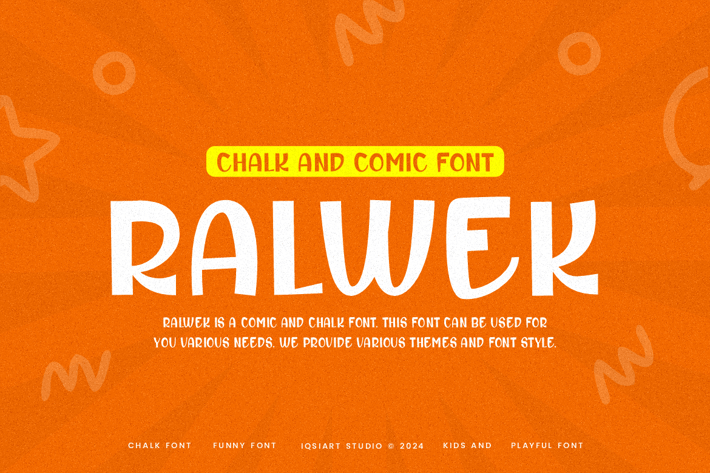
Ralwek - Chalk & Comic Font
Ralwek Font is a best and authentic display font.
This font can be used for your various needs.
We provide various themes and font styles.